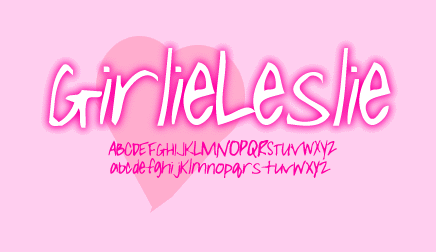
Girlie Leslie
This is what happens when your girlfriend wants to know why you spend so much time playing on that silly computer. You make a font for her out of her handwriting and everyone's happy.